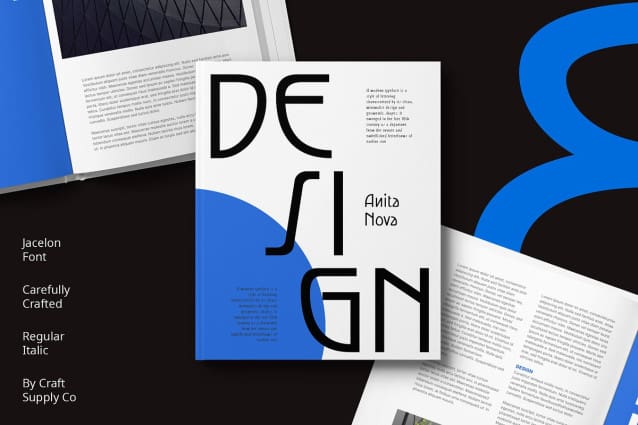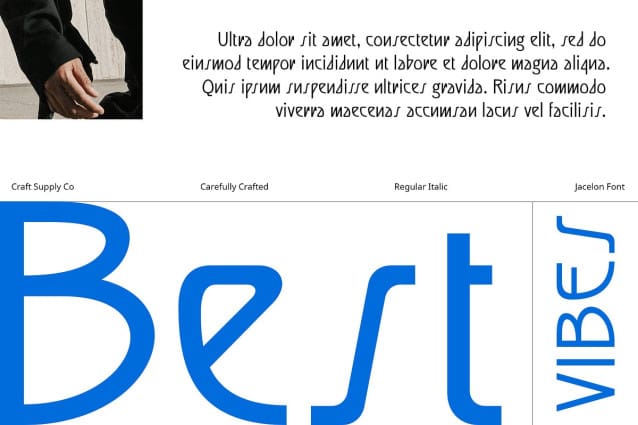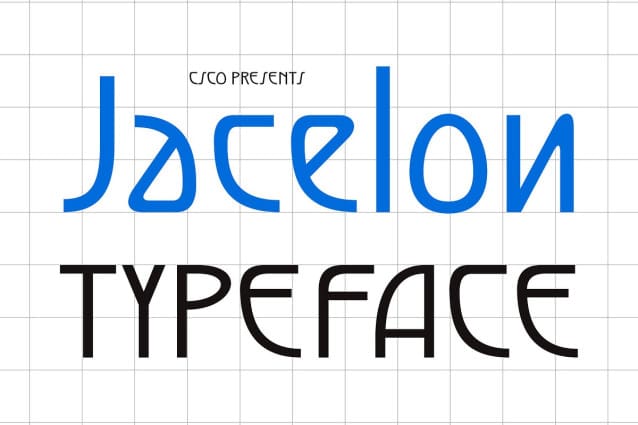
Jacelon Font
Jacelon Font – Art Deco Sans is a sans-serif font with a unique design inspired by the Art Deco movement. Its sleek lines and geometric shapes pay homage to the elegance and glamour of the 1920s and 1930s, making it perfect for designs that require a touch of vintage charm.
With its versatile design, Jacelon Font is suitable for a wide range of applications, from branding to editorial design. Its Art Deco-inspired details add a stylish flair to any project, ensuring that your work stands out from the crowd.
Jacelon Font prioritizes legibility, ensuring that your message is clear and easy to read. Whether used in print or digital media, this font maintains its readability even at smaller sizes, making it suitable for a variety of design applications.
Whether you’re working on a poster, a website, or a branding project, Jacelon Font is the perfect choice for designs that require a blend of classic elegance and modern style. Its timeless design ensures that your work will always look sophisticated and stylish.